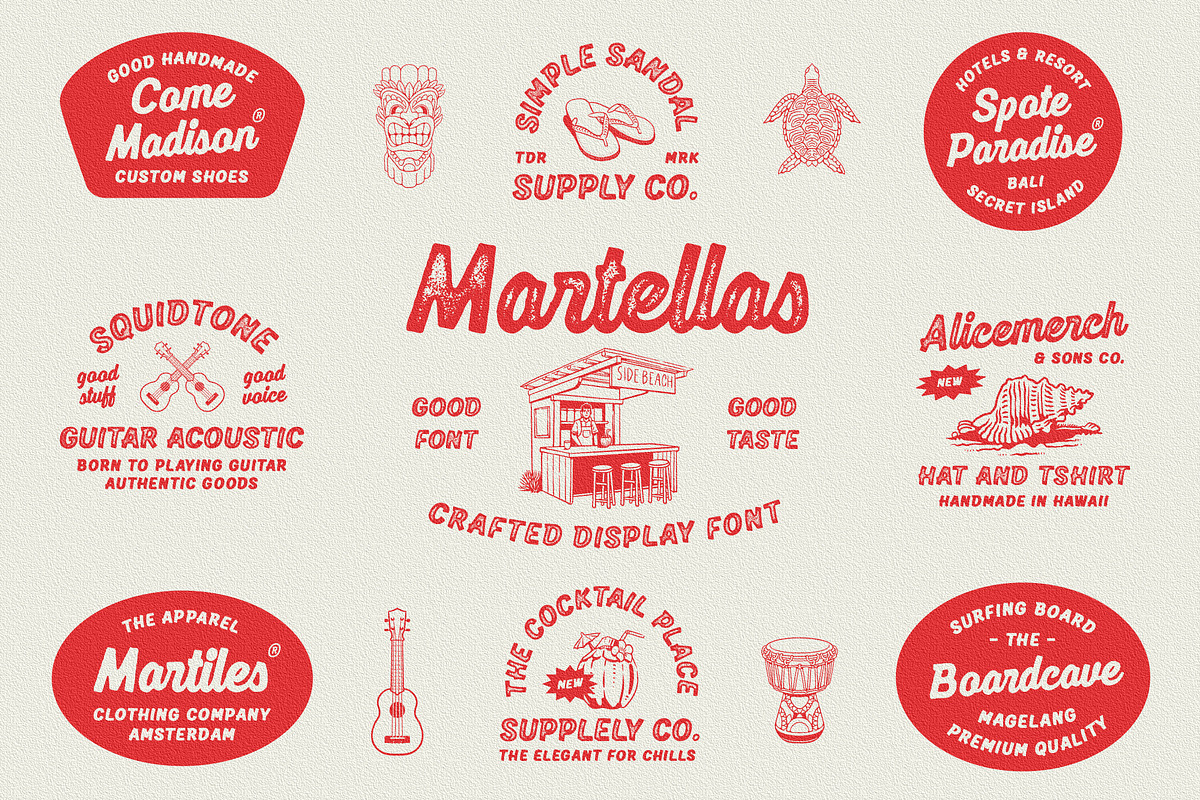
Unlock the full power of expressive typography with Martellas—a bold, versatile, and highly distinctive display font collection engineered for creators who demand character, versatility, and originality. Whether you’re crafting a bold logo, designing a standout poster, labeling a product, or printing a limited-edition t-shirt, Martellas delivers a unique visual voice that cuts through the noise and commands attention.
Built for creative risk-takers, Martellas merges the elegance of hand-drawn script with the precision of modern sans-serif style—blending emotional depth and urban edge. Each font in the collection is crafted with intention, offering four distinct stylistic variations: regular, rounded, rough, and stamp. This isn’t just a font family—it’s a full typographic toolkit ready for every design scenario.
The Power of Choice: Why Martellas Sets the Standard
Martellas isn’t just layered with style—it’s layered with function. Every component has been designed with performance and visual impact in mind, ensuring your work looks sharp, intentional, and professional across all media.
Signature Style Variations – 4 Unique Visual Identities
- Regular: Crisp, clean, and authoritative—perfect for formal branding, elegant packaging, and high-end product labels.
- Rounded: Soft, friendly, and approachable—ideal for youth-oriented brands, lifestyle packaging, and social media visuals.
- Rough: Edgy, authentic, and raw—excellent for streetwear, concert posters, music branding, and urban design.
- Stamp: Textured, bold, and iconic—perfect for badges, logos, t-shirt designs, and vintage-inspired layouts.
Each style maintains character consistency while offering enough variation to express a wide range of moods—from minimalist and modern to playful and rebellious.
Rich Feature Set – Built for Creativity and Precision
- Script Font: Extensive support for uppercase and lowercase letters, numerals, punctuation, symbols, ligatures, and stylistic alternates—giving you complete control over expression.
- Sans Serif Font: All-caps, numerals, punctuation, and symbols with distinct stamp-style textures—ideal for headlines, identifiers, and badges.
- PUA Encoded Characters: Access to a hidden library of special glyphs and decorative elements without needing complex keyboard shortcuts.
- Multilingual Support: Full coverage of European languages including German, French, Spanish, Italian, Dutch, Portuguese, Swedish, and more—supporting diacritics and special characters for global-ready design.
- Hand-Drawn Dingbat Pack: 13 unique, custom-drawn illustration icons—ranging from tropical motifs to abstract symbols—perfect for embellishing posters, labels, and branding collateral.
Where Martellas Shines: Real-World Design Applications
From startup launch campaigns to limited-run apparel, Martellas excels in all high-impact design scenarios. Here’s where it stands out:
Logo & Brand Identity
Build a brand that doesn’t just look good—it feels unforgettable. Martellas gives you the freedom to create a logo that’s bold, memorable, and emotionally engaging. Whether your brand leans into vintage charm or urban rawness, the right Martellas style brings it to life.
Posters & Event Campaigns
Design eye-grabbing posters for concerts, festivals, art shows, or indie film premieres. The rough and stamp variations lend a gritty authenticity that resonates with audiences who crave realness and energy.
Product Packaging & Labels
Make your product stand out on the shelf. Use Martellas for food packaging, cosmetics bottles, craft beverage labels, or skincare boxes. Its handcrafted aesthetic adds a premium, artisanal feel that speaks to quality.
T-Shirts, Merch, & Streetwear
Turn your creative vision into wearable art. Martellas’ rough and stamp styles are perfect for bold, graphic t-shirt designs. The included dingbats add a playful or iconic touch—ideal for fashion brands, music collectives, or pop culture labels.
Quotes, Quotes Boards, & Social Media Graphics
Craft inspirational quotes with emotional punch. Combine Martellas script with a clean sans serif backdrop for contrast, and use the hand-drawn dingbats as decorative elements. Perfect for Instagram, Pinterest, and motivational content.
Martellas gives you the tools to design with confidence, personality, and power. It’s not just typography—it’s storytelling through form and structure.